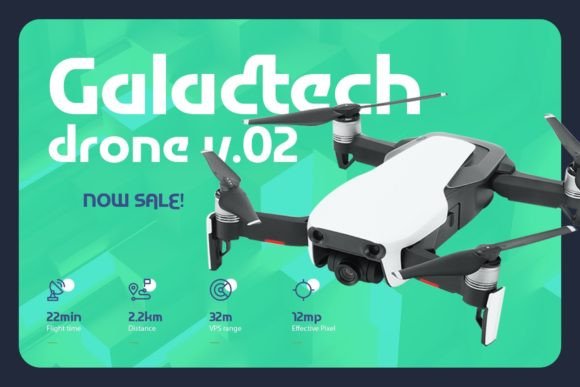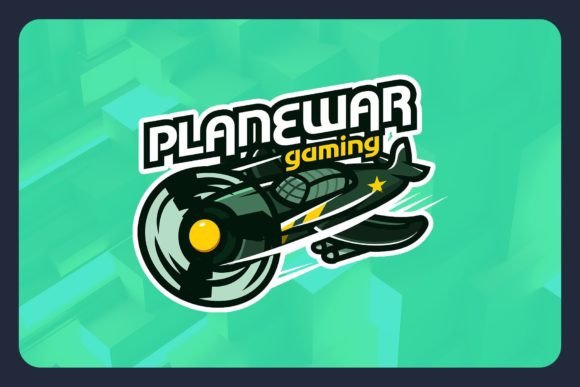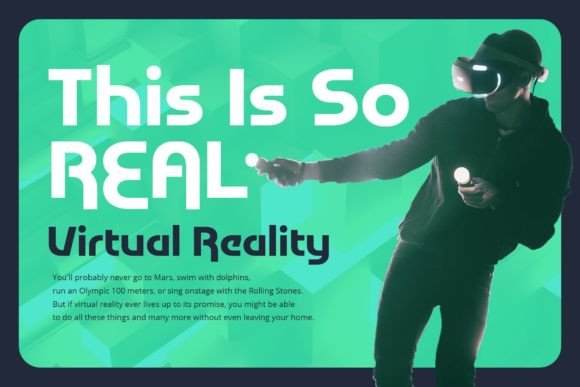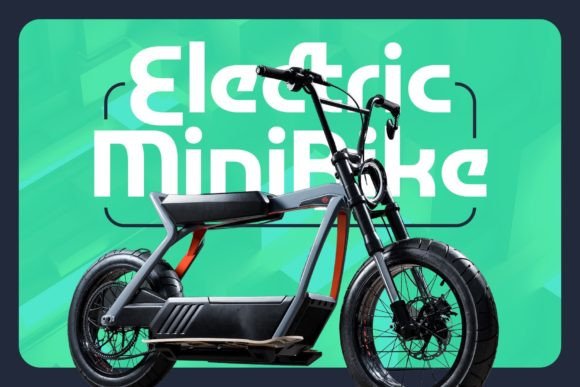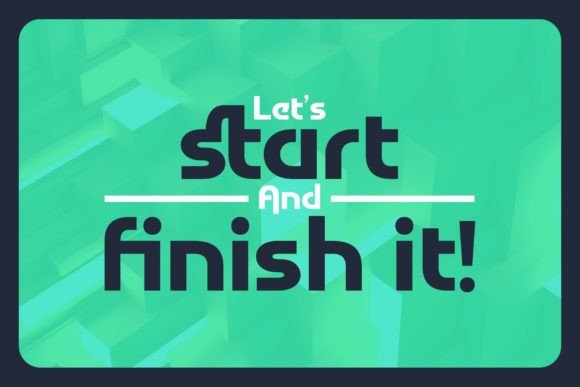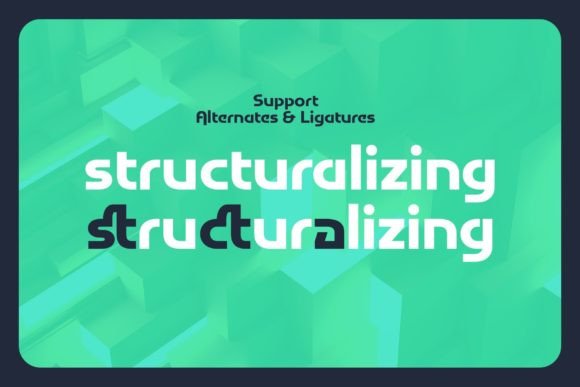
Introduction to Ratsel Font
Ratsel is a bold geometric sans serif font.
Its modern and trendy vibe makes it perfect for a wide pool of projects .
Key Features of Ratsel Font
Why Choose Ratsel Font?